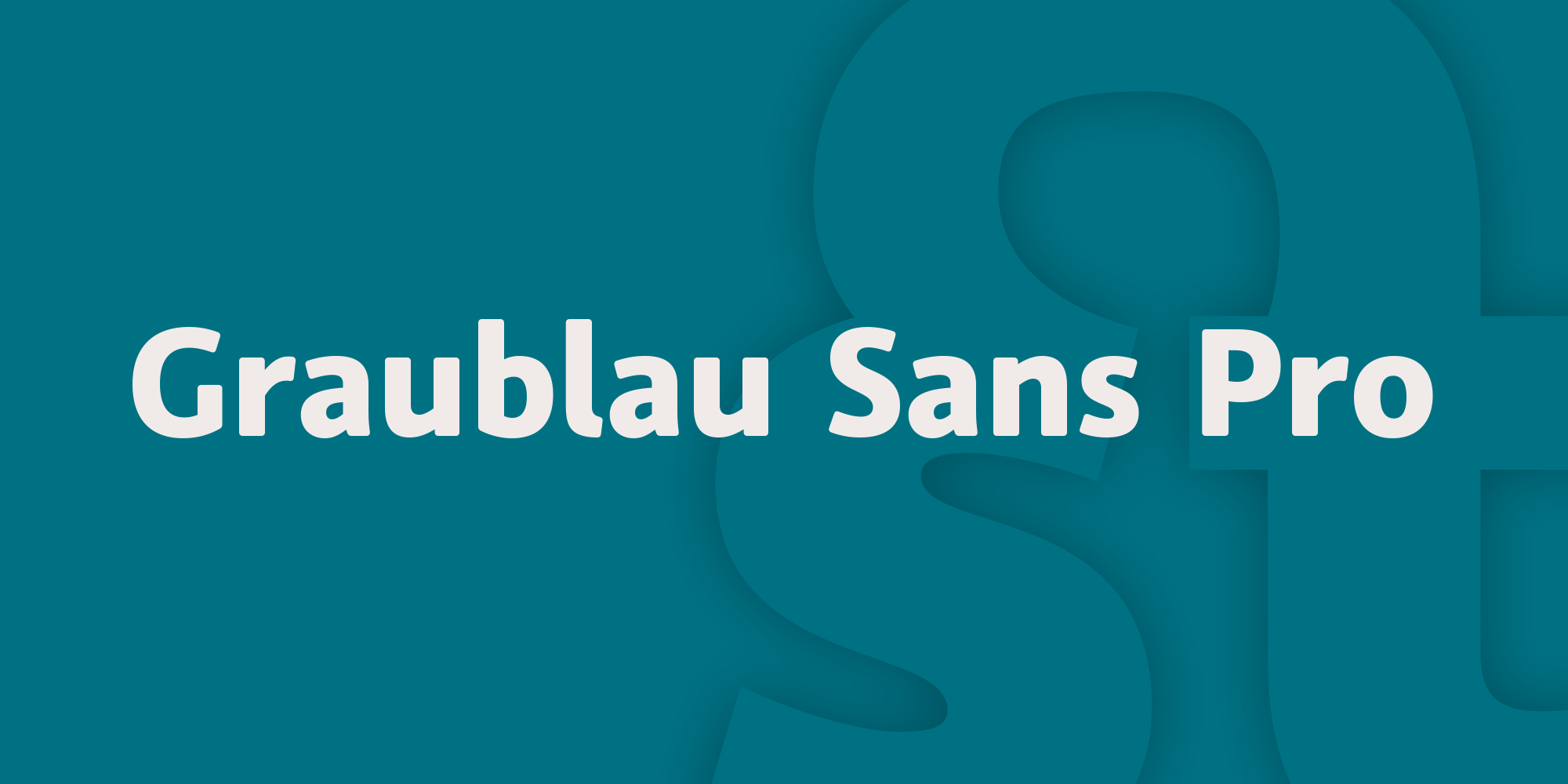
Discover clarity and professionalism with Graublau Sans Pro Font Free Download, a versatile sans-serif typeface designed for optimal readability and sleek aesthetics. Perfect for corporate branding, user interfaces, editorial design, and marketing materials, this font blends modern minimalism with functional elegance.
Graublau Sans Pro offers clean lines and well-balanced letterforms that work flawlessly across digital and print platforms. Its neutral yet distinctive character makes it an excellent choice for companies, startups, and creative agencies aiming to communicate trust and innovation.